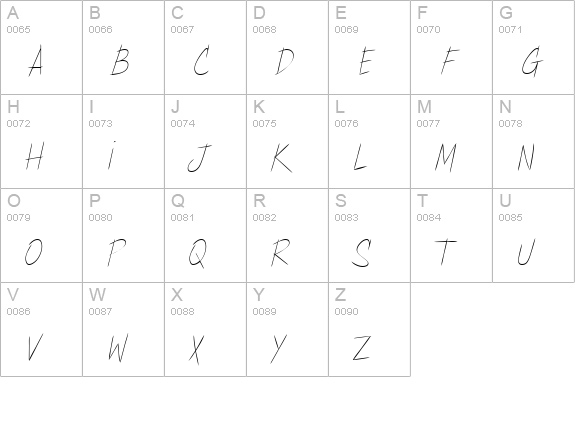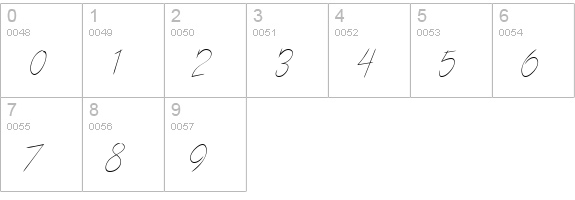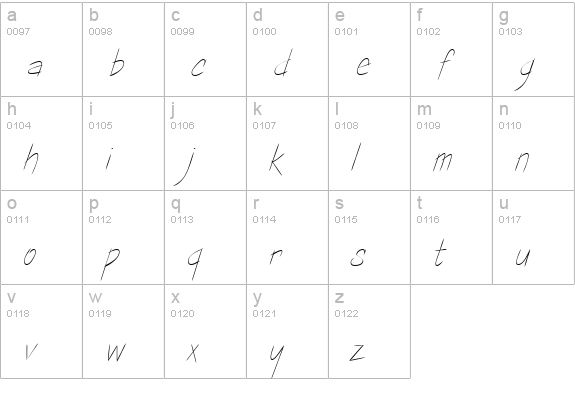
Copa Sharp BTN Light Font Details
Copa Sharp BTN Light is a refined, elegant variant in the Copa typeface family \xE2\x80\x94 well suited to elegant body text, refined sub-headings, and luxury branding.
Copa Sharp BTN Light font is a modern and sleek typeface that exudes elegance and sophistication. With its clean lines and subtle curves, this font is perfect for creating a contemporary and refined look for your designs. The light weight of the font adds a touch of delicacy and finesse, making it suitable for a wide range of projects. What makes Copa Sharp BTN Light font even more enticing is that it is available for free download at FontsMarket.com. This means that you can easily access this stylish font without any cost, allowing you to elevate your designs without breaking the bank. Whether you are working on branding materials, editorial layouts, or digital projects, Copa Sharp BTN Light font is a versatile choice that will bring a touch of class to your work.